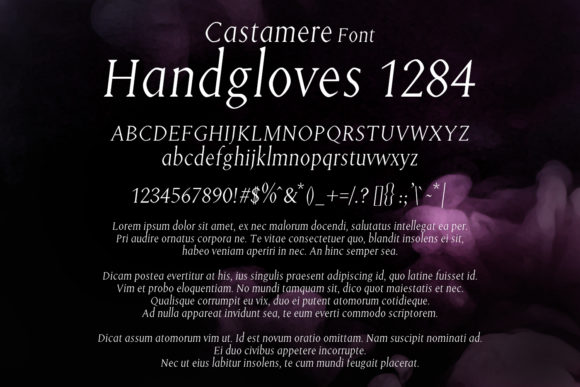
Discover Your New Favorite Font: Castamere Font
You know that feeling when you’re staring at a blank canvas, trying to bring your creative vision to life? The cursor blinks, and your mind goes blank. But then, it hits you – the perfect font to set the tone for your project. For designers, the right font can make all the difference between a mediocre design and a masterpiece.
Enter Castamere Font, a sleek and sophisticated serif font that’s perfect for a wide range of designs. Whether you’re working on a corporate logo, a wedding invitation, or a social media post, Castamere Font’s clean and simple style is sure to impress. As a valuable addition to any designer’s toolkit, Castamere Font is a versatile choice that’s sure to become your go-to font for any occasion.
Castamere Font Key Features
- Font Family: A custom, serif font family designed for dramatic and elegant purposes.
- Unique Characteristics: Features a unique blend of medieval and modern design elements, with intricate details and flourishes.
Castamere Font Review
Overall, I was excited to dive into the world of Castamere Font, with its promise of unique and elegant typography. ✨ The first thing that caught my attention was the font’s versatility – it works beautifully for both body text and headlines, making it a great choice for designers who need a consistent look throughout their project.
✨ The font’s custom illustrations and ornaments are another standout feature. They add a touch of whimsy and sophistication to any design, and can help to break up large blocks of text.
⚠️ One of the main limitations of Castamere Font is its limited language support. This may be a problem for designers working on international projects, as it can be difficult to ensure that the font renders correctly across different languages.
⚠️ Additionally, the font’s high-end aesthetic may not be suitable for every project. It’s a bit of a showstopper, and may be overkill for simpler designs or budgets.
Conclusion
In conclusion, Castamere Font is a beautiful and versatile font that can add a touch of elegance to any design. However, its limitations should be carefully considered before committing to its use.
- Unique and elegant typography
- Versatile for both body text and headlines
- Custom illustrations and ornaments
- Limited language support
- High-end aesthetic may not be suitable for every project
Castamere font is commonly used for:
- Business cards and branding materials
- Posters and brochures Alternatives to Castamere Font for Designers
Castamere Font Project Ideas
Project 1: “Game of Thrones” Title Sequence
Create a custom title sequence for a fictional “Game of Thrones” episode using the Castamere Font. This project will showcase the font’s unique characteristics and create an immersive experience for viewers.
Project 2: “House Tyrell” Business Card
Create a business card for House Tyrell using the Castamere Font. This project will showcase the font’s elegant and sophisticated characteristics.